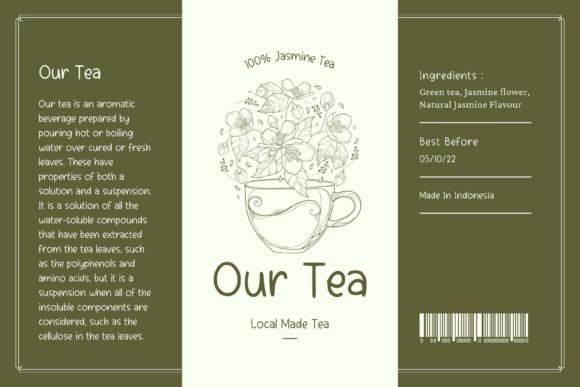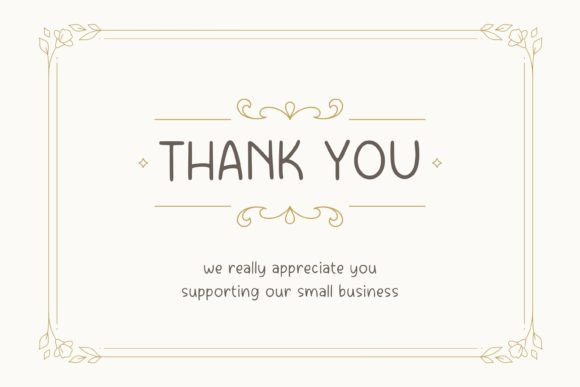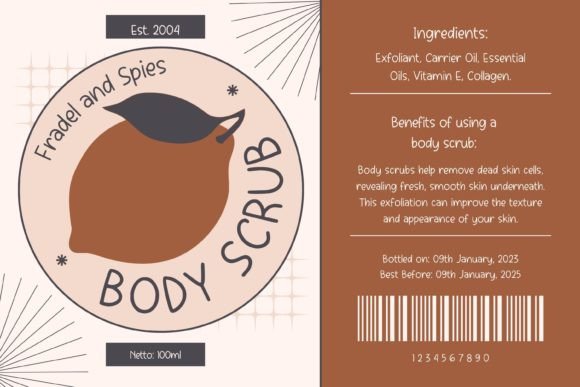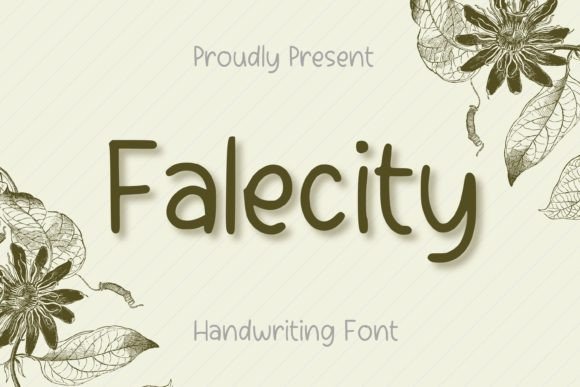
Introduction to Falecity Font
Embark on a journey of visual eloquence with Falecity, a captivating typeface with versatile charm.
Its tasteful design is well-suited for a broad array of applications, from elevating your brand’s identity to adding a personal touch to your logos It’s also an excellent companion when communicating complex ingredient listings on your products.
Key Features of Falecity Font
Why Choose Falecity Font?
Falecity Font offers exceptional quality and versatility, making it a valuable addition to your design toolkit. Whether you’re creating for personal projects or commercial use, Falecity Font delivers professional results.